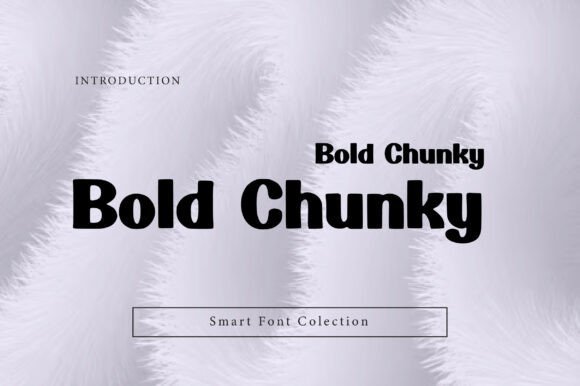
When Your Design Needs to Make a Statement
Think back to the last time you saw a design that stopped you in your tracks – the bold, eye-catching logo that screamed brand identity or the massive headline that demanded attention. For designers, those moments are the ultimate goal. And that’s where the Bold Chunky Font comes in – a thick, playful, and highly impactful display font designed to grab attention instantly.
Whether you’re working on a sports apparel campaign, a web design project, or an urban street-style graphic, the Bold Chunky Font is the perfect solution for carrying heavy weight and undeniable presence. Its ultra-thick stems and minimal negative space create a powerful “blocky” aesthetic that’s sure to make a lasting impression.
Bold Chunky Font Key Features
- Unique Characteristics: Distinctive bold and chunky design, ideal for creating eye-catching headlines and titles
Bold Chunky Font Review
I’ve had the chance to work with Bold Chunky Font on a recent project, and I’m excited to share my thoughts. ✨ The first thing that caught my attention was its dramatic flair – it’s perfect for making a statement. It’s bold, it’s chunky, and it’s definitely eye-catching.
One of the things that I appreciate about Bold Chunky Font is its versatility. It can be used for titles, headings, or even short blocks of text. It’s a great choice for designers who want to add some personality to their projects without going overboard. ✨ It’s also highly legible, even at smaller font sizes.
However, I do have a few concerns about Bold Chunky Font. ⚠️ One of the main limitations is its lack of subtlety. It’s a very bold font, and it can be overwhelming if used too much. I’ve seen it used in designs where it feels more like a gimmick than a thoughtful choice. ⚠️ Additionally, it may not be the best choice for long blocks of text, as it can be difficult to read.
Overall, I think Bold Chunky Font is a great choice for designers who want to add some drama to their projects. Just be sure to use it thoughtfully and in moderation. It’s a great tool to have in your arsenal, but it’s not a one-size-fits-all solution.
Pros:
- Perfect for making a statement
- Highly legible, even at smaller font sizes
- Great choice for titles, headings, or short blocks of text
Cons:
- Lacks subtlety and can be overwhelming
- Not ideal for long blocks of text
Practical Application Guide: Bold Chunky Font
Use Bold Chunky Font to add a playful and eye-catching touch to your designs, such as:
Headlines and titles
Button text
Quote overlays
Emphasize important text with a bold and chunky font.
Remember to balance bold fonts with regular fonts to avoid overwhelming the viewer.
Alternatives to Bold Chunky Font
Playfair Display is a luxurious and elegant font that is perfect for adding a touch of sophistication to your designs. It is ideal for use in headings, titles, and other high-impact areas. Compared to Bold Chunky Font, Playfair Display is more refined and has a classic feel, making it suitable for a wide range of design applications.
Akzidenz-Grotesk
Akzidenz-Grotesk is a sans-serif font that is great for use in body text and headings. It is clean, modern, and versatile, making it a popular choice for designers. Unlike Bold Chunky Font, Akzidenz-Grotesk is more understated and doesn’t have the same level of visual impact, but it is still highly effective in conveying information.
Didot is a elegant and refined font that is perfect for use in high-end designs. It is ideal for use in headings, titles, and other areas where a touch of luxury is desired. Compared to Bold Chunky Font, Didot is more refined and has a classic feel, making it suitable for a wide range of design applications.
Montserrat is a sans-serif font that is great for use in body text and headings. It is clean, modern, and versatile, making it a popular choice for designers. Unlike Bold Chunky Font, Montserrat is more understated and doesn’t have the same level of visual impact, but it is still highly effective in conveying information.